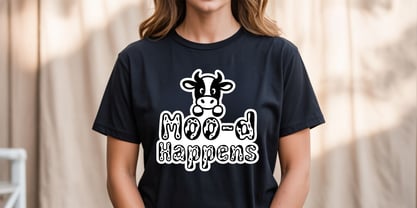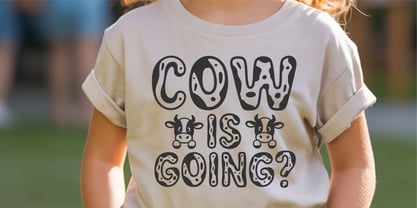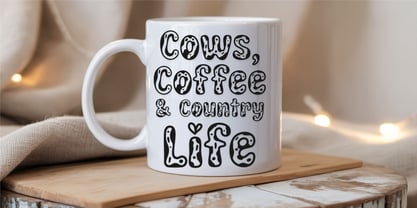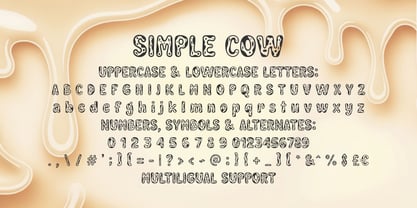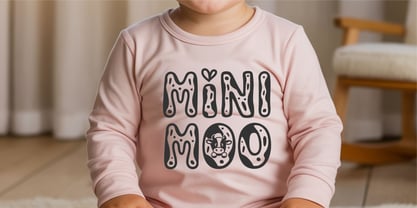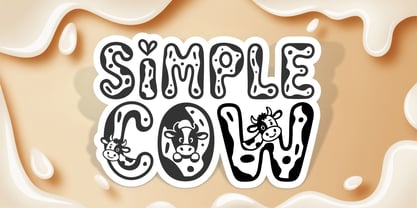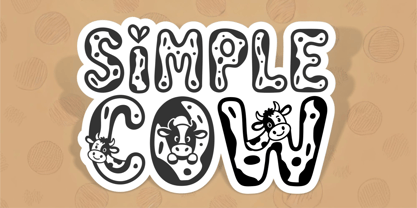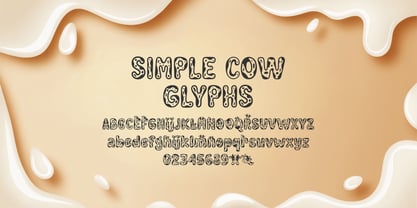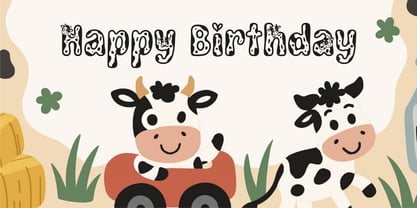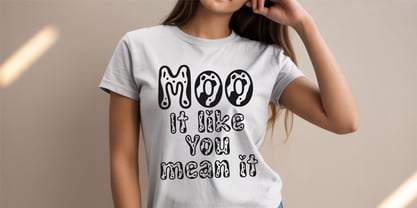
Simple Cow
La familia tipográfica Simple Cow fue diseñada por Tony Balios y publicada por Tonis Art Studio. Simple Cow contiene 1 estilos.
Simple Cow is a joyful and whimsical display font inspired by the charm of farm life and the unmistakable style of cow prints. Each character is filled with playful personality, featuring bold spotted patterns and adorable cow illustrations that bring a touch of fun to every word. Designed to appeal to both kids and adults, this font is perfect for projects that need a warm, cheerful, and lighthearted feel.
Whether you're designing birthday invitations, children's apparel, baby shower decor, classroom posters, or crafting signage with a rustic twist, Simple Cow delivers eye-catching results with ease. Its thick, rounded shapes make it highly legible while still retaining a strong sense of individuality and character.
Simple Cow includes uppercase and lowercase letters, numbers, punctuation, and multilingual support. It’s a great choice for designers, crafters, and educators looking for a font that’s as creative as it is accessible. From farmhouse-themed branding to playful educational materials, this font is ready to bring joy, humor, and personality to your next design.
Let your creativity graze freely — and make your work stand out with a font that’s truly mooo-velous.